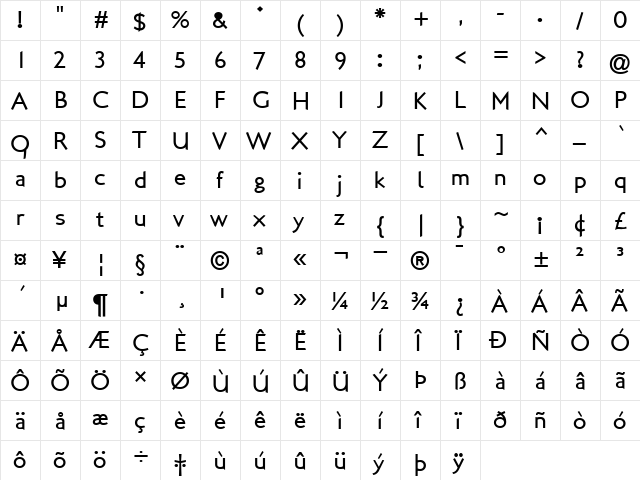
SansBetween Regular
Design Context for SansBetween Typeface
SansBetween offers clean, dependable letterforms without strong stylistic allegiance, making it a practical choice for designers who need flexibility.